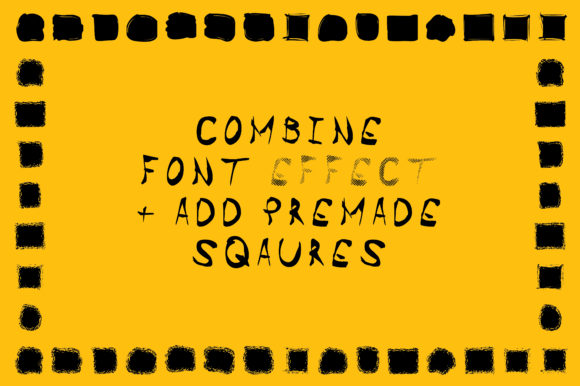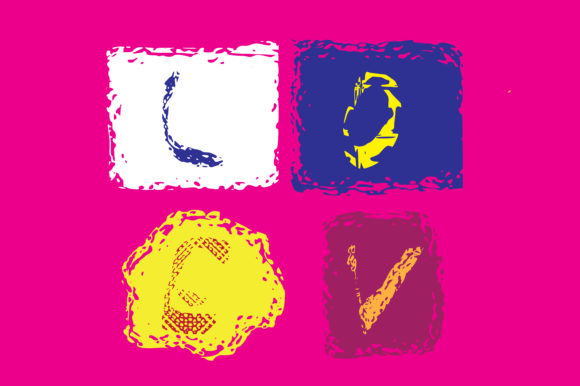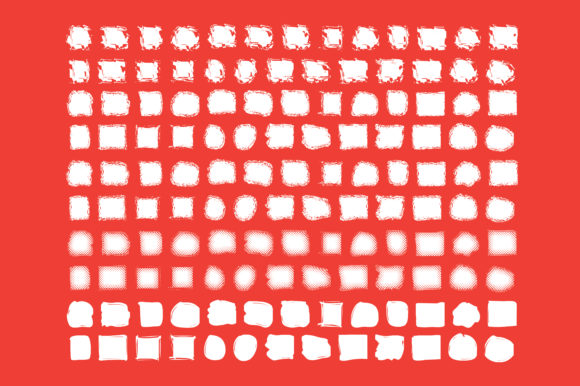
Craft Kit Font: The Perfect Companion for Craft Lovers
Are you a crafter, designer, or DIY enthusiast looking for a font that can elevate your art and craft projects? Look no further than the Craft Kit Font! This versatile font comes with four unique styles to choose from, along with amazing frames to mix and match, making it a must-have for any craft lover.
What is Craft Kit Font?
Craft Kit Font is a carefully crafted typeface designed specifically for crafters, designers, and DIY enthusiasts. It features four distinct styles, each with its own unique character and charm. Whether you’re working on a scrapbooking project, creating handmade cards, or designing custom decals, this font is sure to become your new best friend.
Key Features of Craft Kit Font
- Four Unique Styles: The Craft Kit Font comes with four different styles to choose from, allowing you to experiment with different looks and feels for your projects.
- Amazing Frames: The font includes a range of beautiful frames that can be mixed and matched to create stunning designs.
- Highly Versatile: Whether you’re working on a scrapbooking project, creating custom signs, or designing handmade cards, the Craft Kit Font is the perfect choice.
- Experiment with Different Styles: Try out each of the four styles to see which one works best for your project.
- Mix and Match Frames: Combine different frames to create unique and eye-catching designs.
- Play with Colors and Textures: Don’t be afraid to experiment with different colors and textures to add depth and interest to your designs.
Ideas for Using Craft Kit Font
The Craft Kit Font is perfect for a wide range of art and craft projects, including:
- Scrapbooking: Use the font to create beautiful journal pages, photo albums, and other scrapbooking projects.
- Handmade Cards: Design custom greeting cards for special occasions, such as birthdays, weddings, and holidays.
- Custom Signs: Create personalized signs for your home, office, or business.
- Decals and Stickers: Use the font to design custom decals and stickers for laptops, water bottles, and other items.
Why Craft Lovers Will Adore This Font
Craft lovers will adore the Craft Kit Font for its versatility, ease of use, and stunning design. Here are just a few reasons why:
- Perfect for DIY Projects: The font is designed specifically for crafters and DIY enthusiasts, making it the perfect choice for a wide range of projects.
- Easy to Customize: With four styles to choose from and a range of frames to mix and match, you can easily customize the font to suit your project’s needs.
- High-Quality Design: The font features a high-quality design that’s both visually appealing and easy to read.
In conclusion, the Craft Kit Font is a must-have for any craft lover, designer, or DIY enthusiast. With its four unique styles, amazing frames, and ease of use, it’s the perfect choice for a wide range of art and craft projects. So why wait? Download the Craft Kit Font today and start creating stunning designs that will take your projects to the next level!